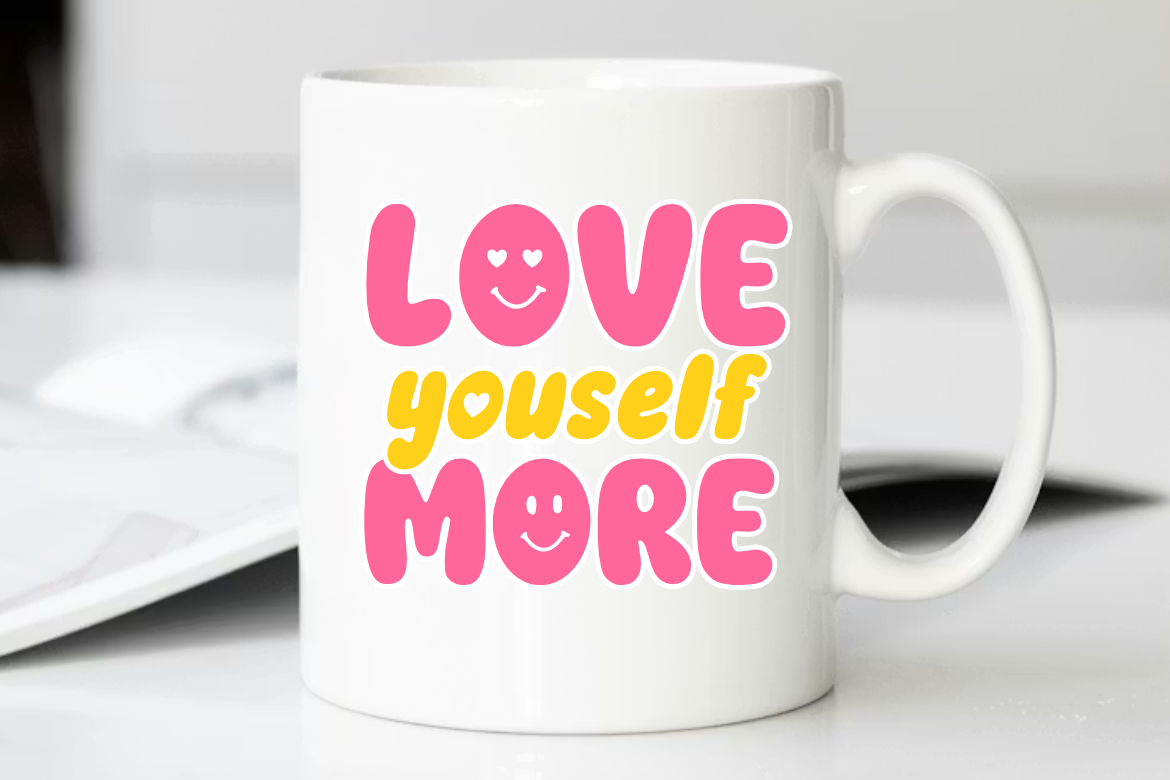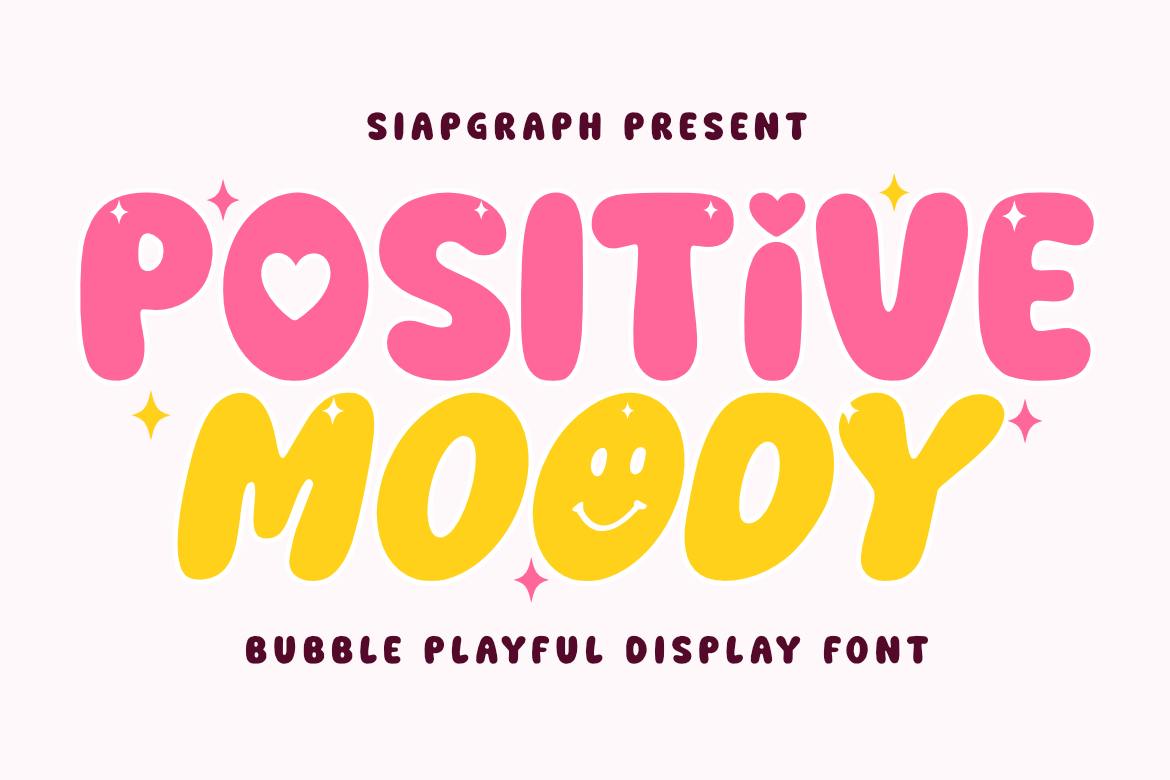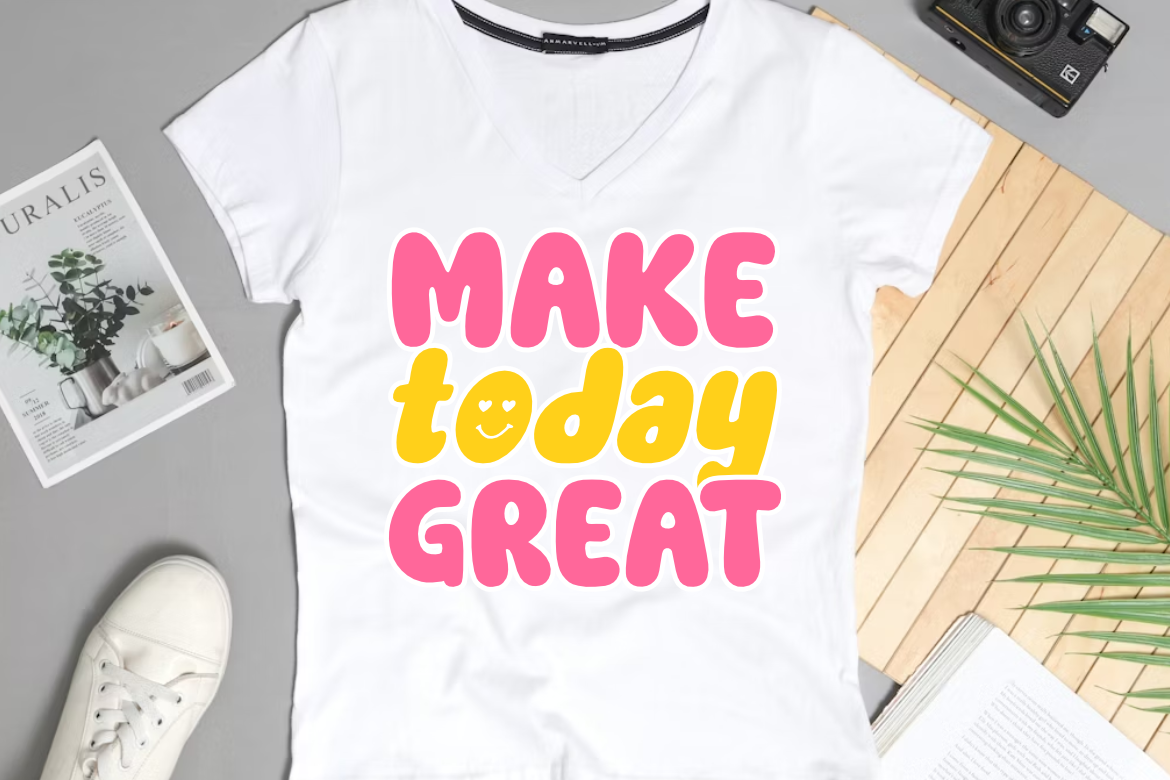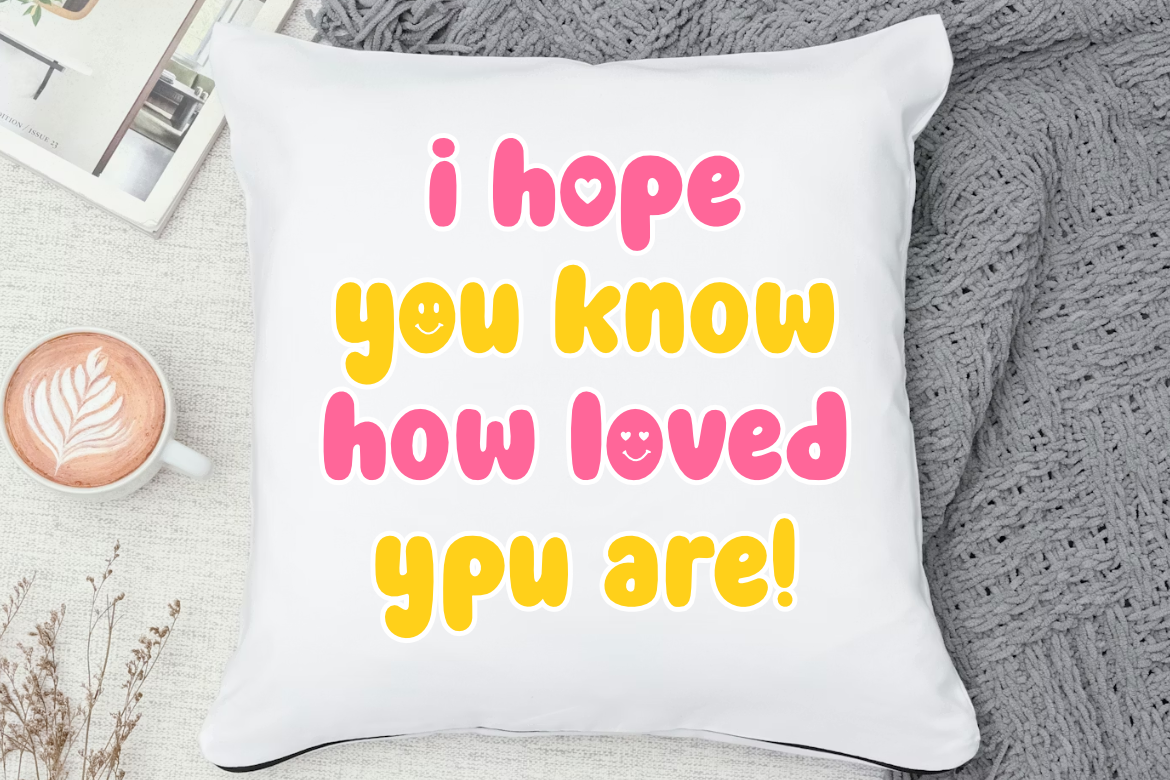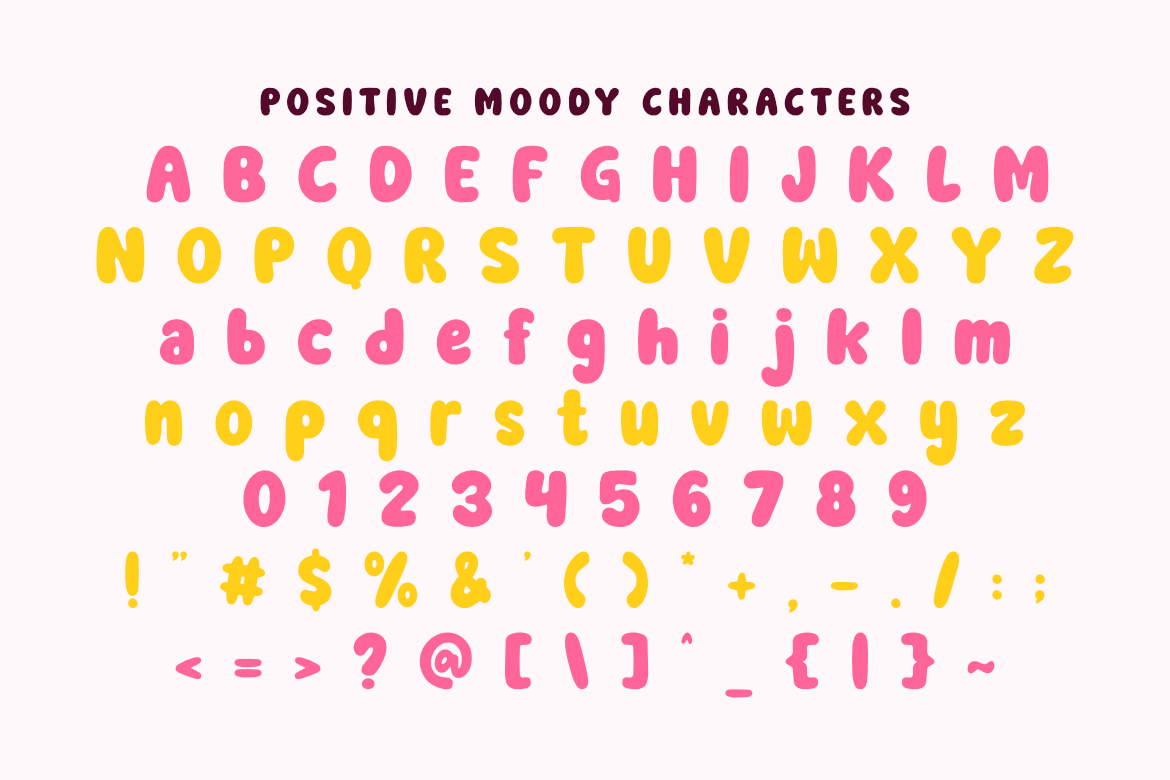
Positive Moody - Playful Bubble Font for Cricut and Sublimation
Retro Groovy Handwriting Display Font for Cricut and Sublimation
Positive Moody is a bubble playful display font inspired by 70s groovy aesthetics and vibrant Y2K nostalgia. This typeface features fun heart and smiley face accents, making it an excellent choice for creators in the craft, POD, and DIY sectors who want to add a cheerful touch to their projects.
Perfect for crafting SVG cut files, personalized t-shirts, stickers, mugs, tote bags, and nursery wall art. Its bold and rounded design ensures high visibility for print-on-demand products, digital planners, and social media graphics.
Great for holiday themes such as Birthdays, Valentine’s Day, and Summer celebrations, bringing a bright and optimistic vibe to every creative design!